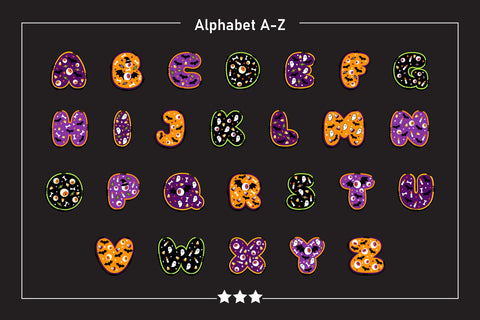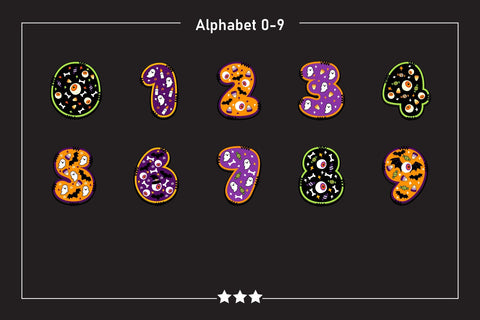
Scary Color Fonts
Scary is a cute and fun Halloween-styled detailed colored font. It can be used in Halloween, horror or cute work, it’s incredibly perfect. Add it to your creative ideas and notice how it makes them stand out!